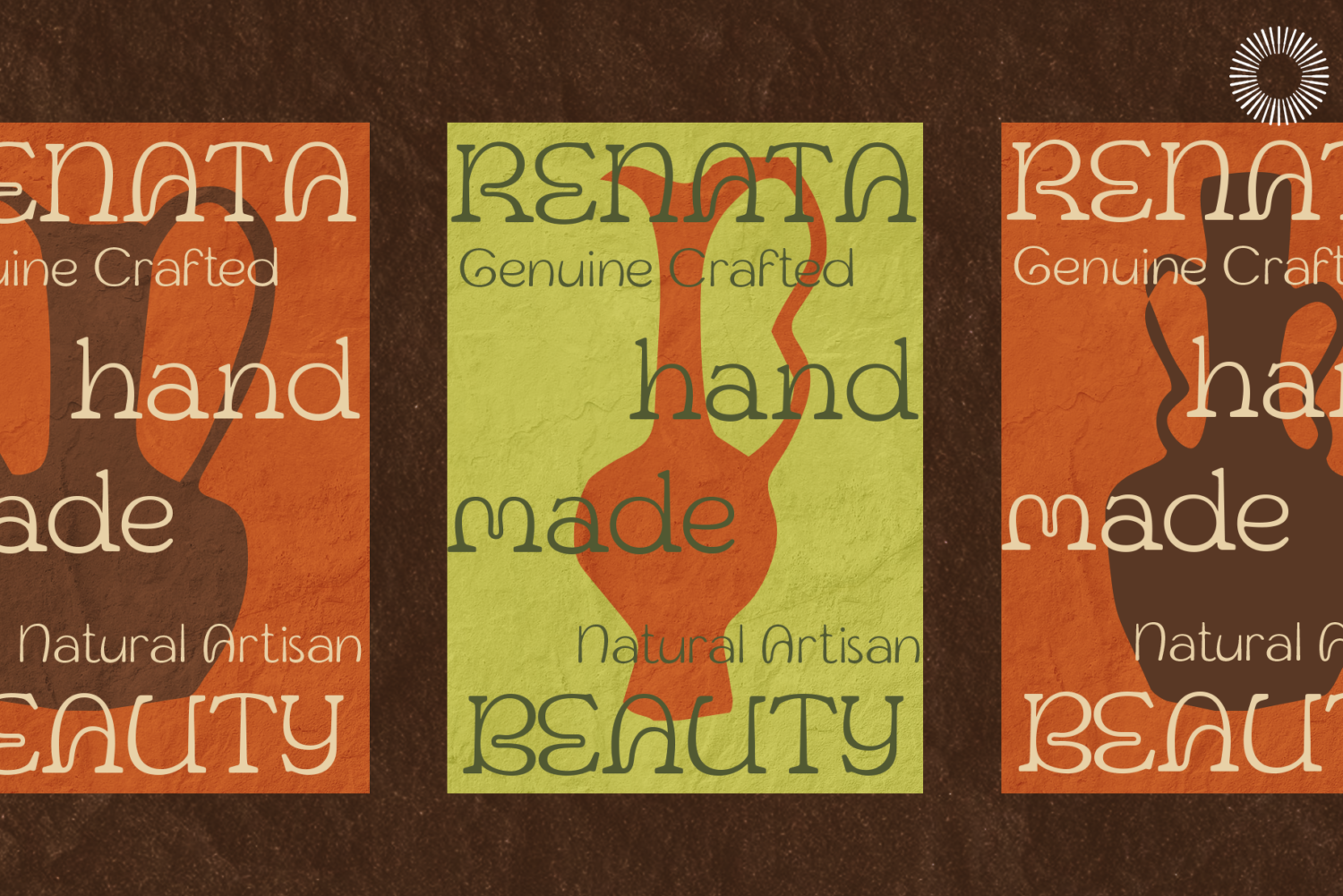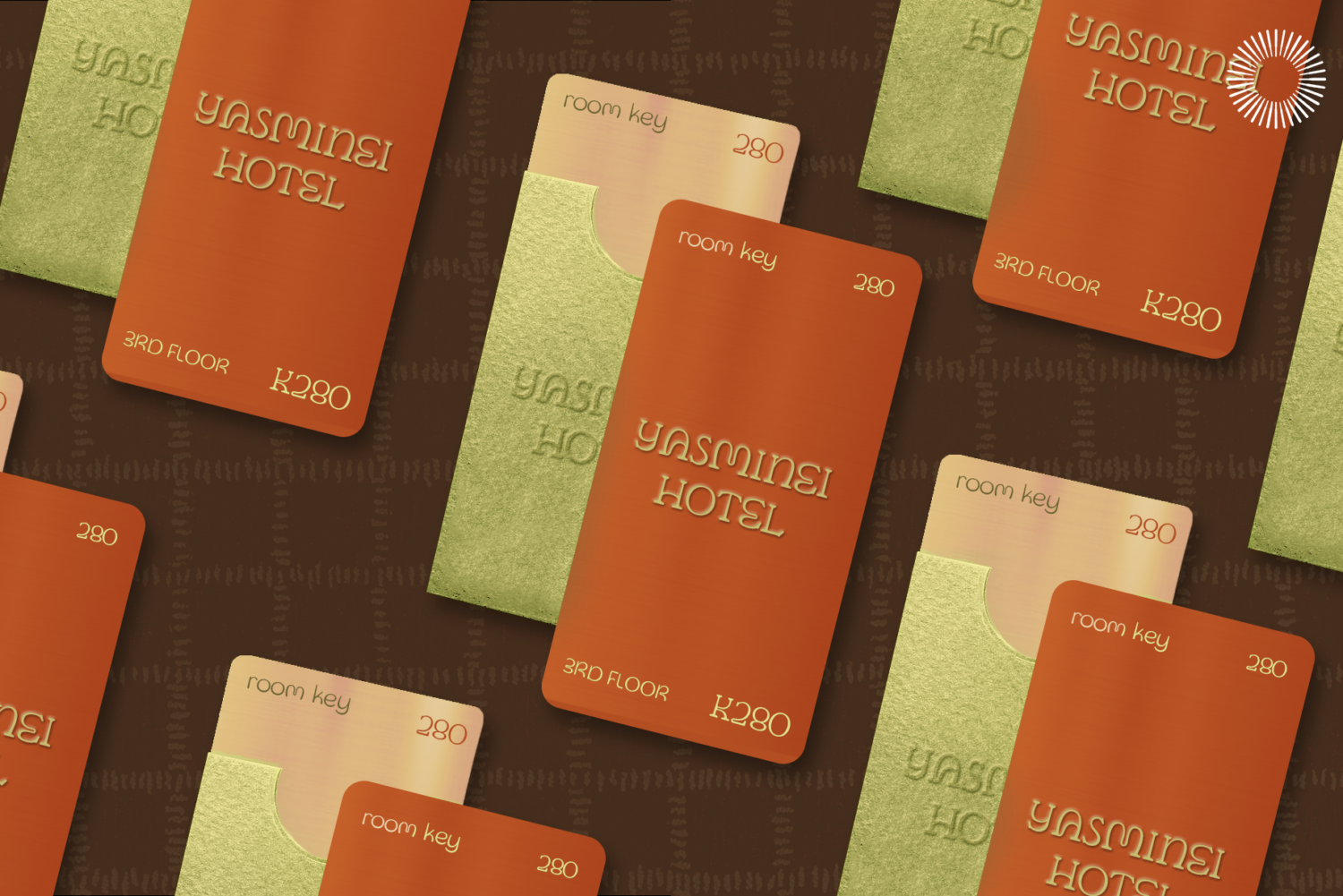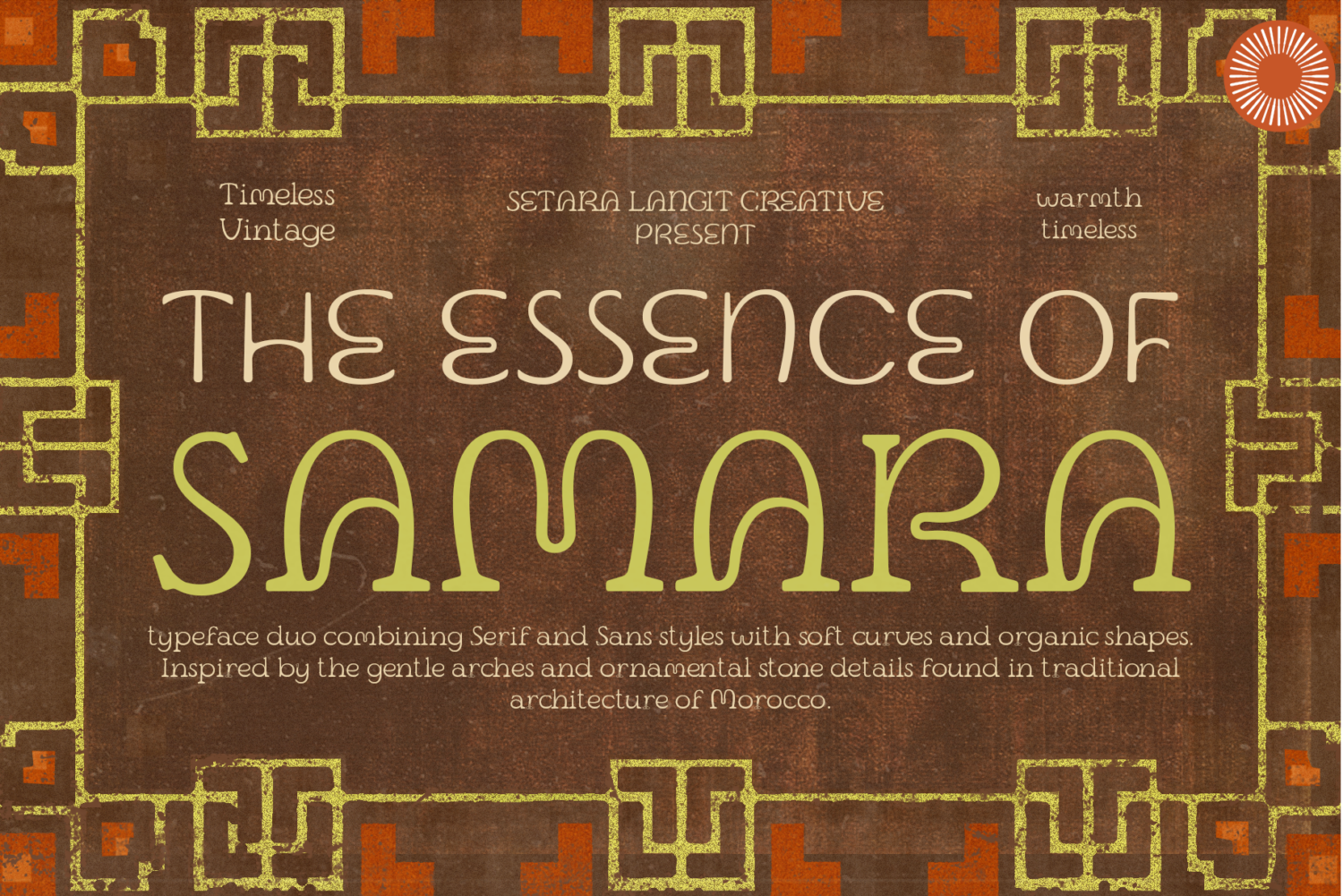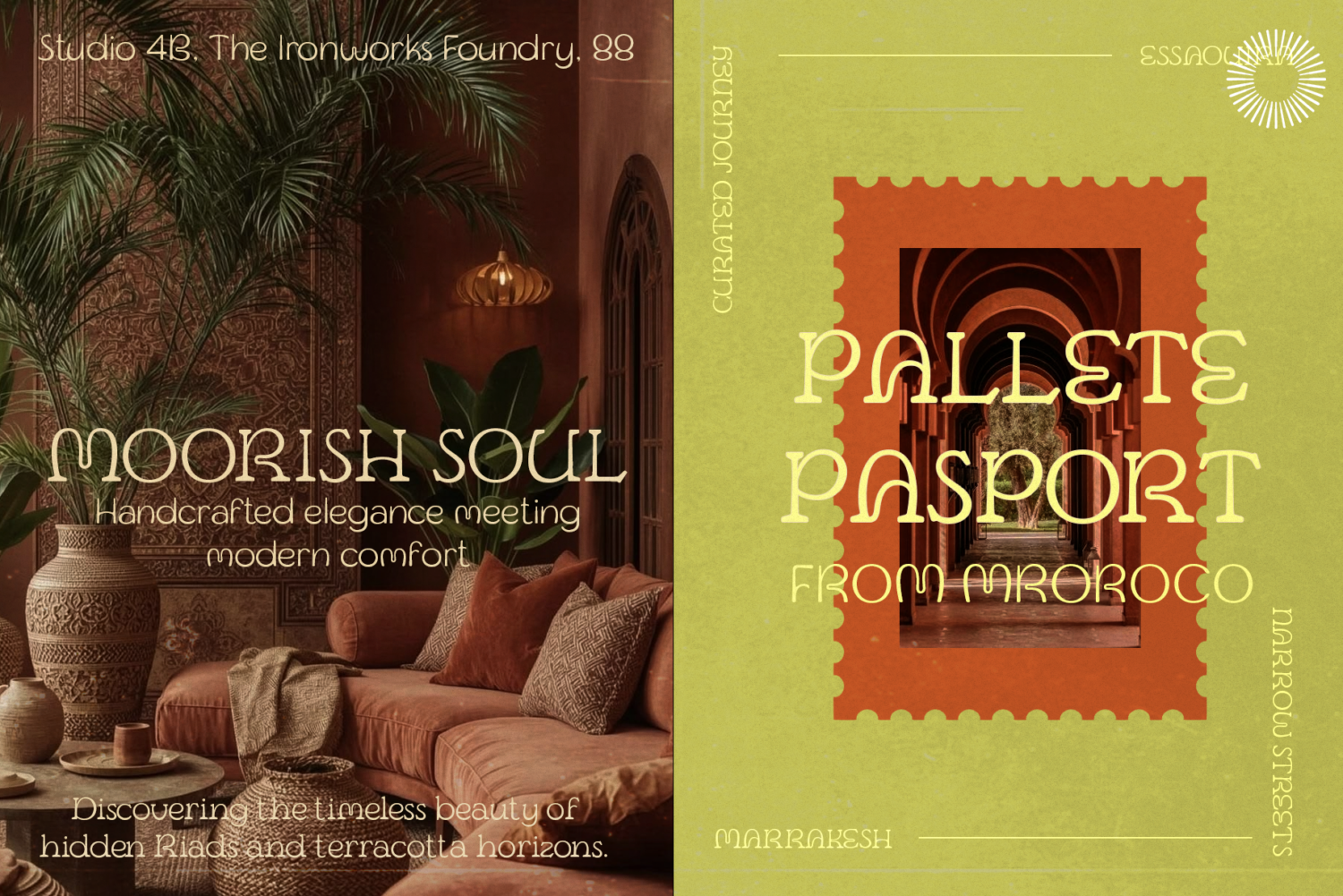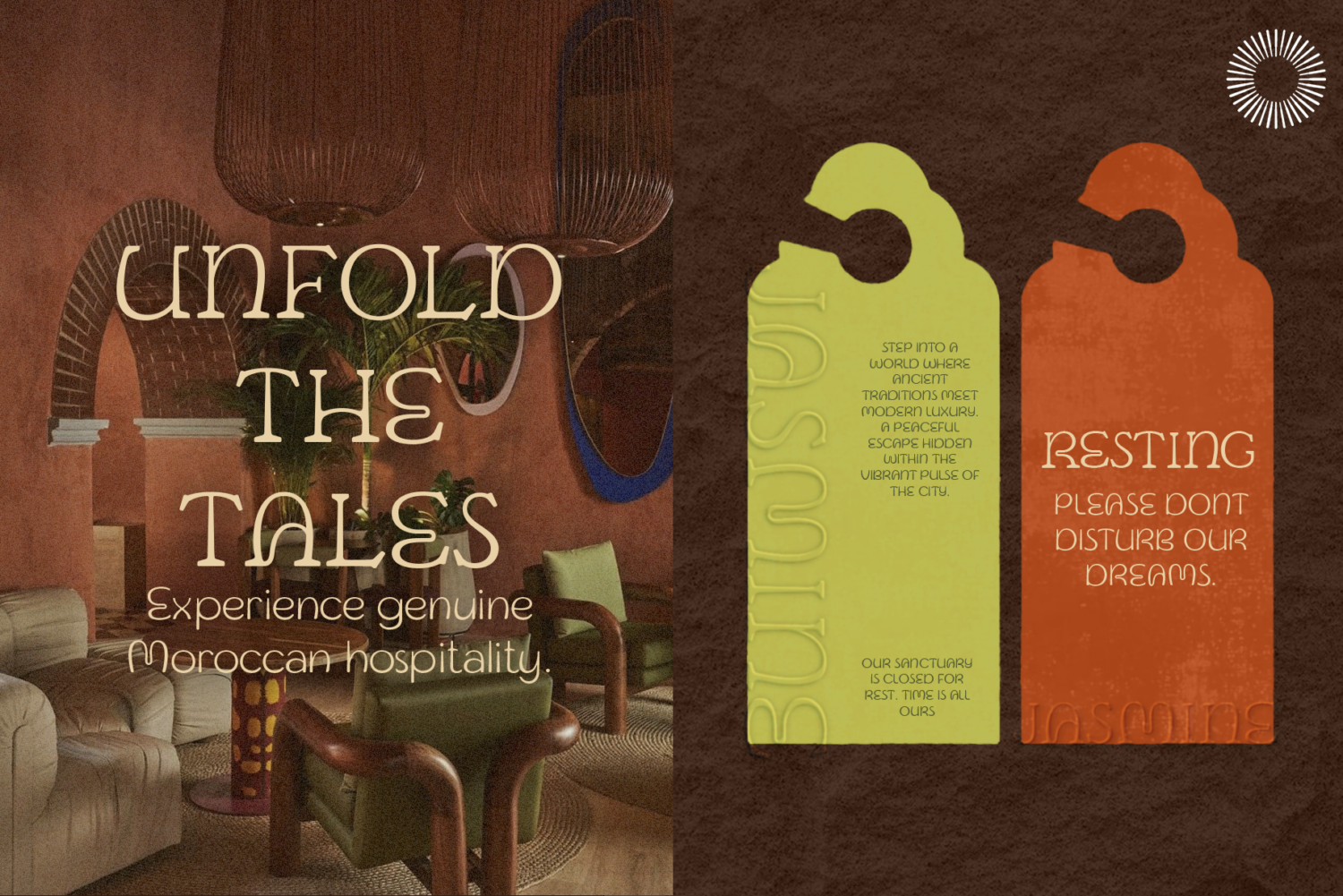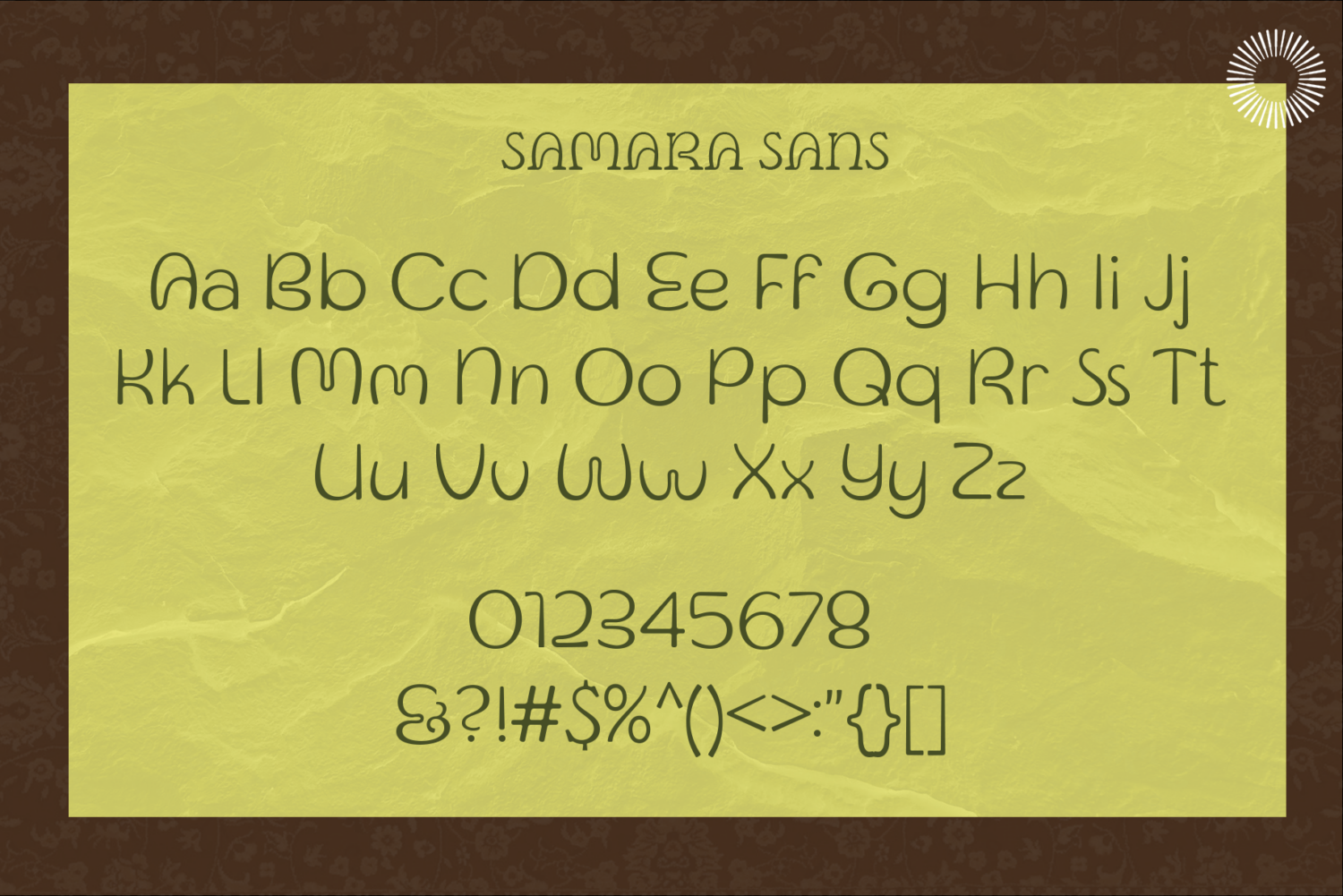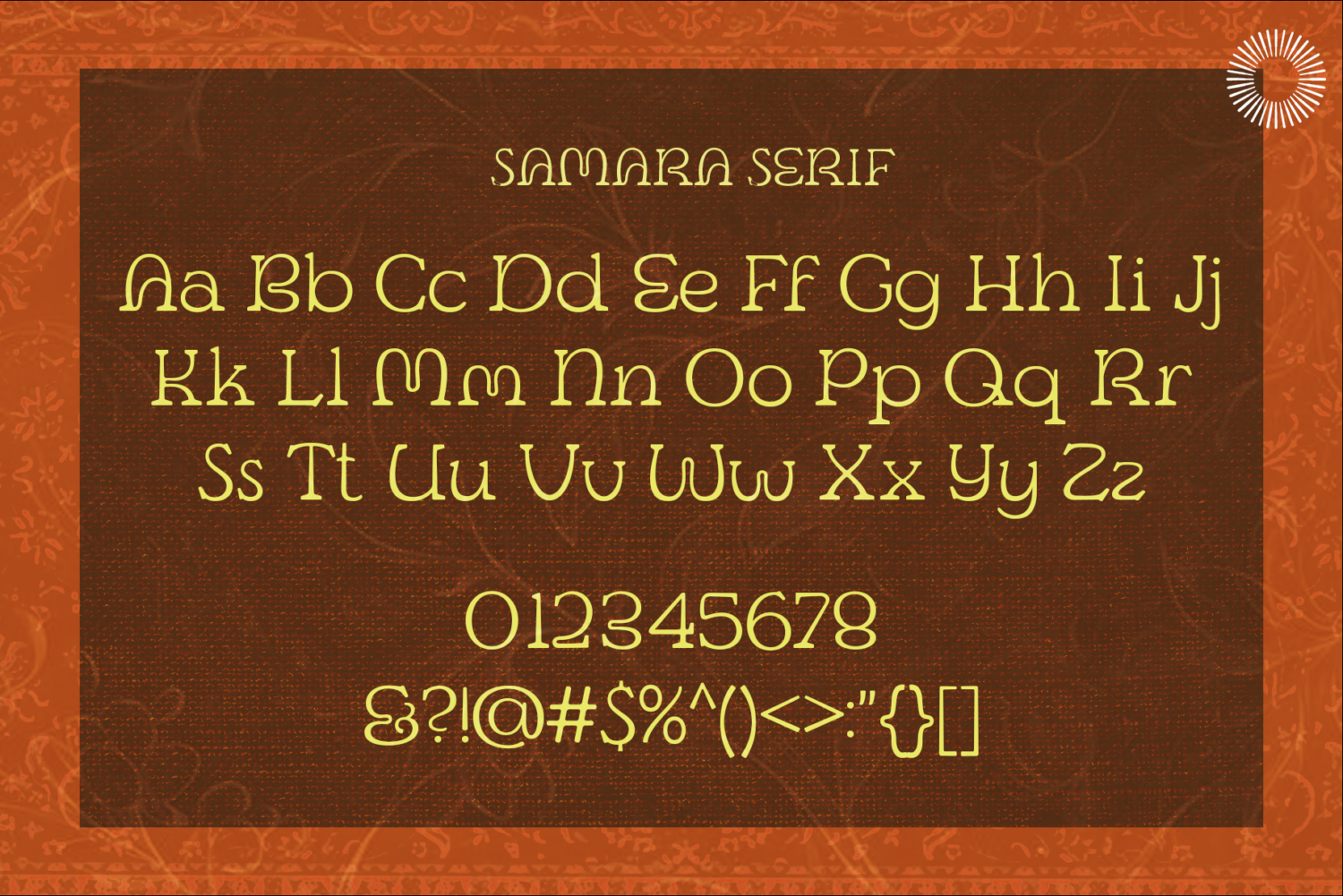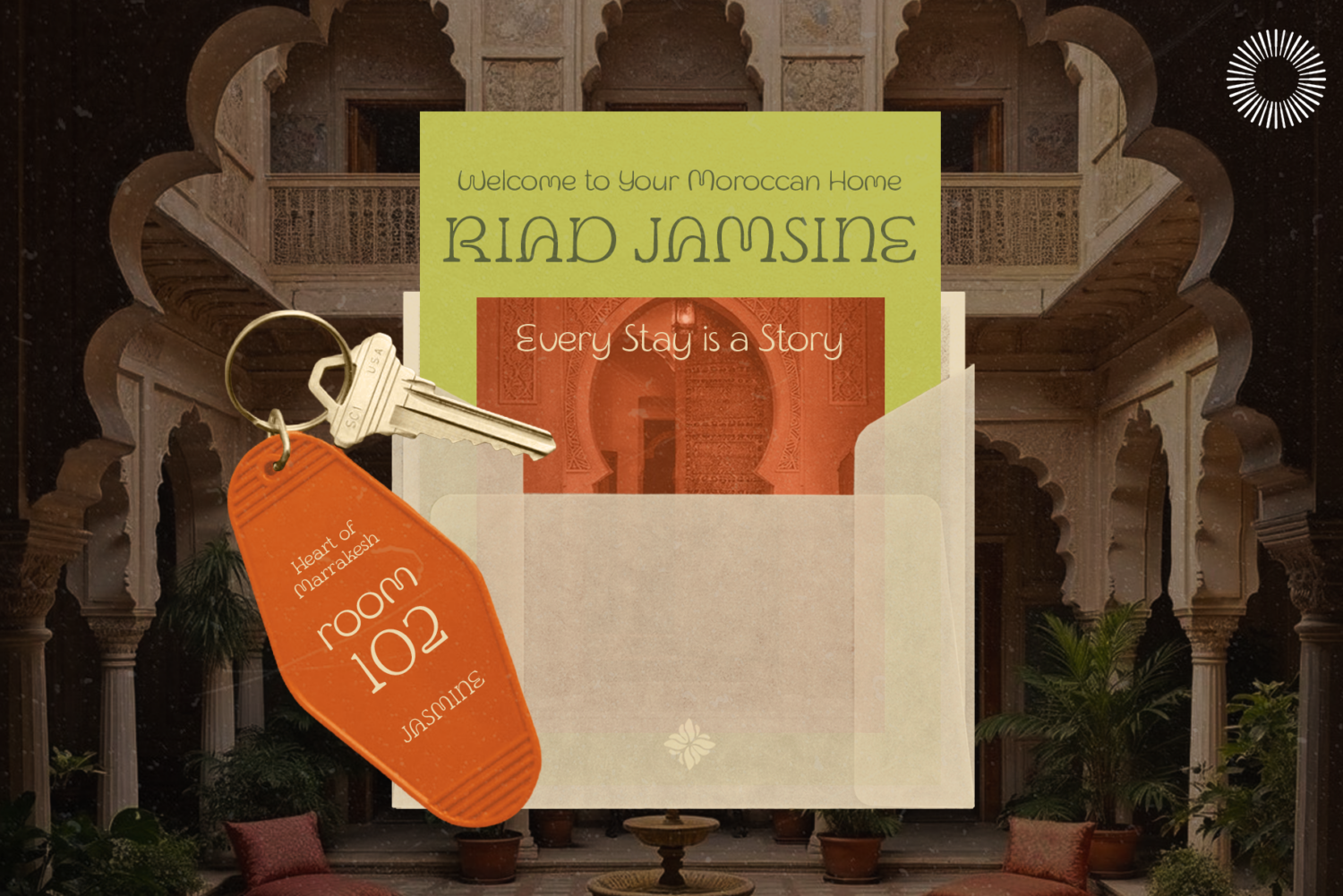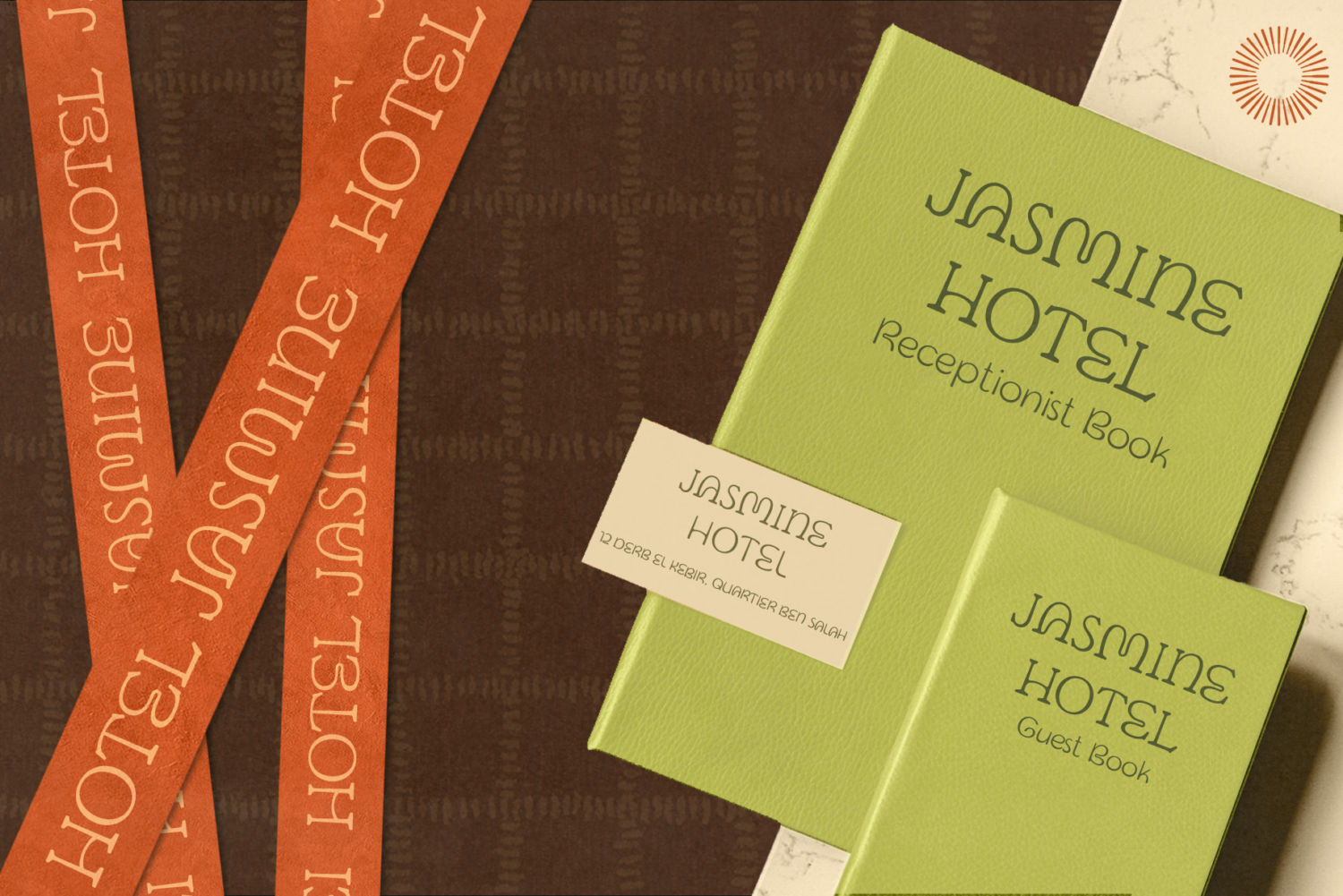
Samara – Serif+Sans Moroccan Exotic
Samara is a distinctive font duo that blends serif and sans styles with soft curves and organic, ornamental shapes—drawing inspiration from the timeless beauty of Moroccan architecture.
With its unique letterforms influenced by arches and decorative stone details, Samara brings a warm, cultural, and vintage feel into your designs. The combination of structured serif elements and smooth sans curves creates a harmonious balance between tradition and modernity.
This font duo is designed to stand out while remaining elegant, making it perfect for projects that seek both character and sophistication.
Feature
• Multilingual support
• Uppercase & lowercase
• Numerals & punctuation